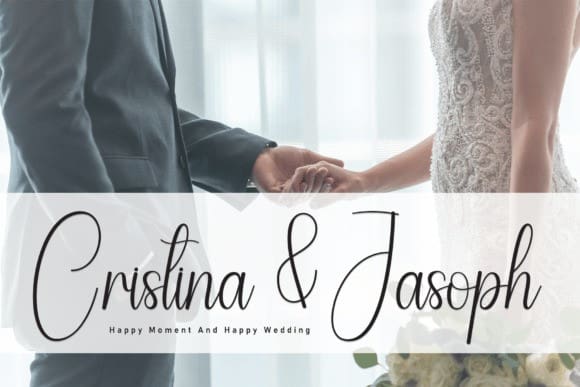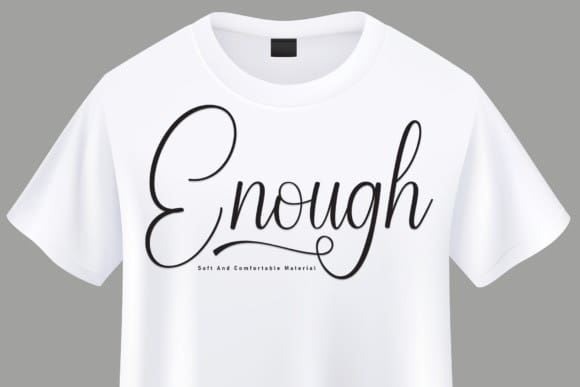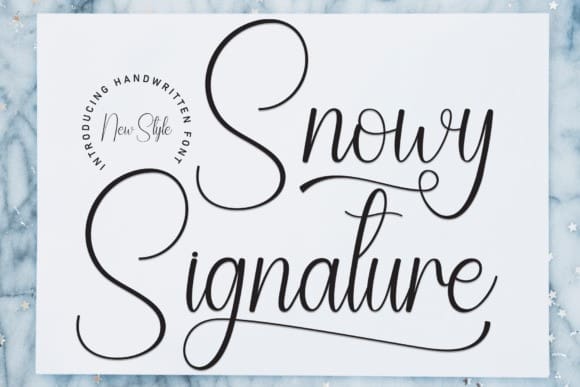
Snowy Signature Font
Snowy Signature Font is a unique and elegant handwritten font. It looks beautiful on a variety of designs requiring a personalized style, such as wedding invitations, thank you cards, greeting cards, logos, and so on.